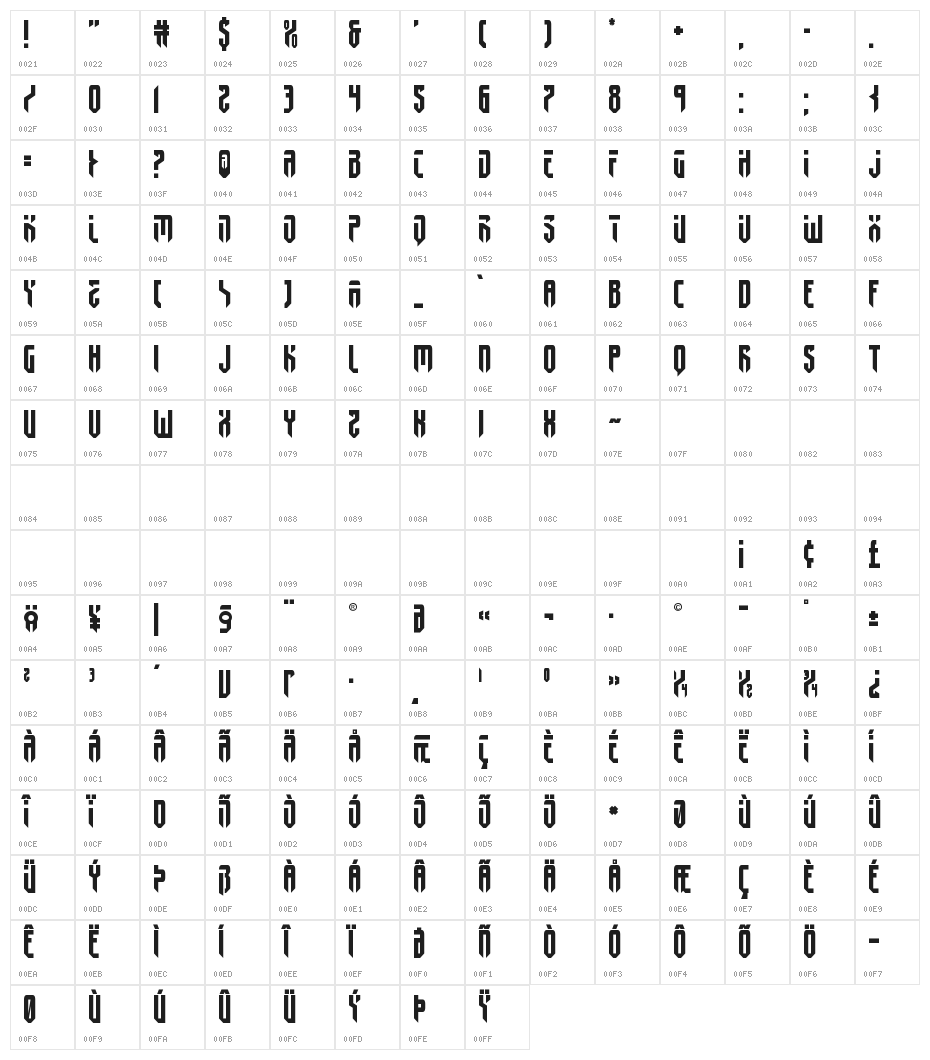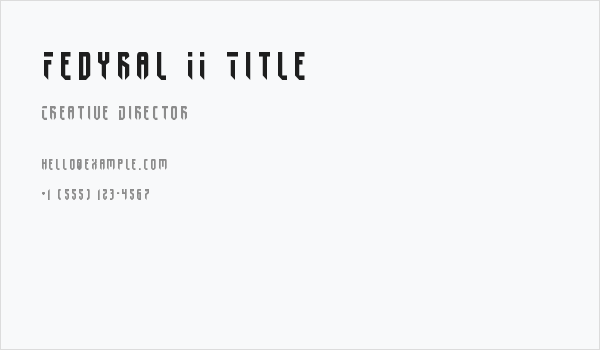
Fedyral II Title Font
Fedyral II Title Description
This font features a bold and geometric design with sharp angles and a futuristic aesthetic. The uppercase letters are distinct with a blocky, angular style that gives a sense of strength and modernity. The lowercase letters maintain the same angular design, ensuring consistency throughout the typeface. Numbers and special characters are crafted with the same attention to geometric detail, making them highly legible and visually striking. The overall appearance is both modern and industrial, suitable for projects that require a strong visual impact.